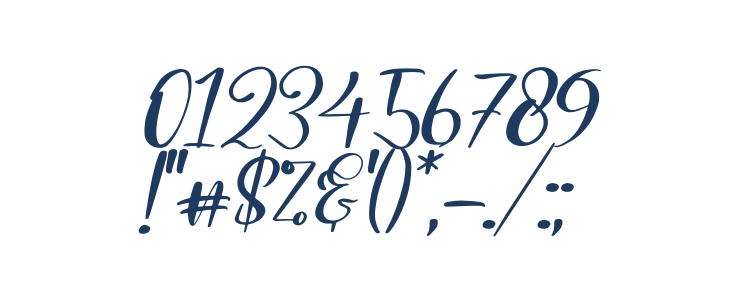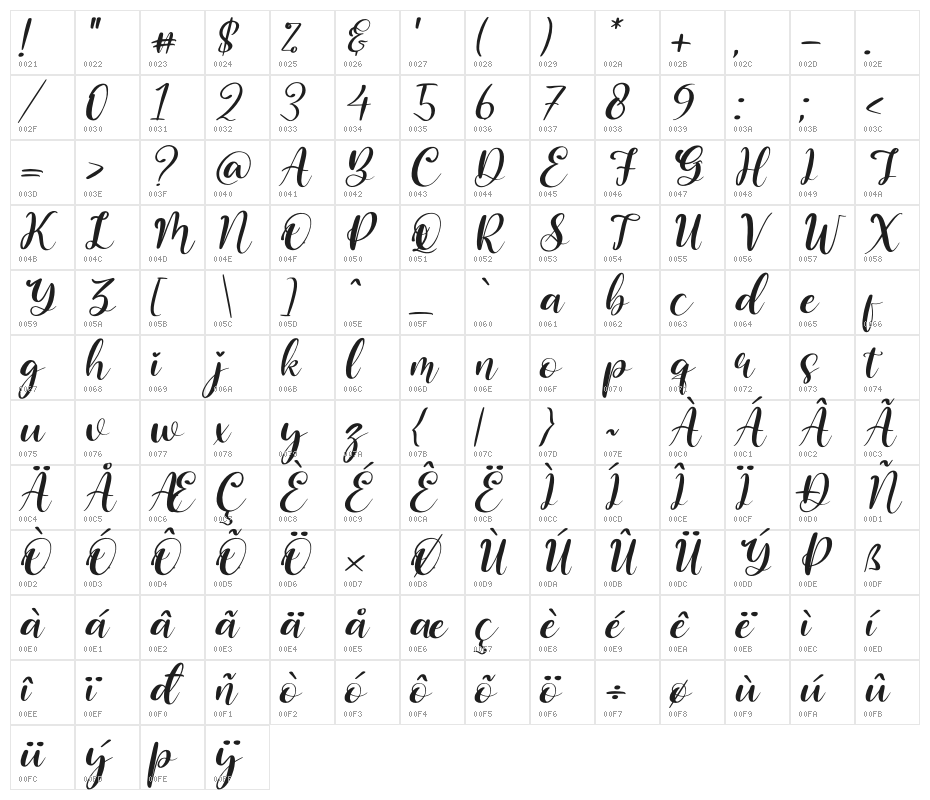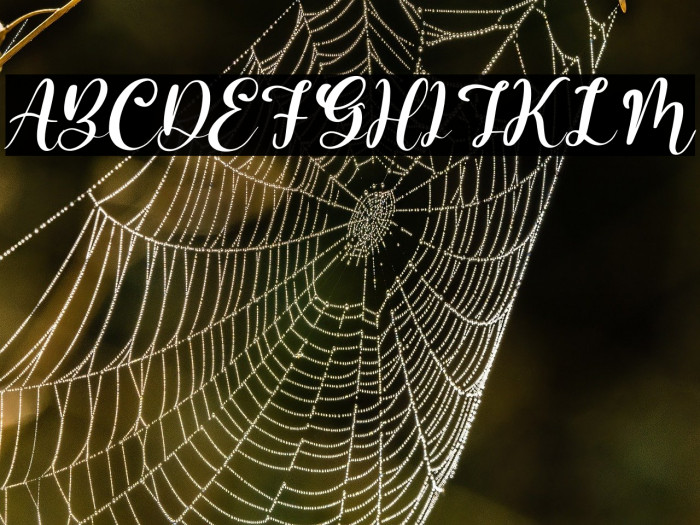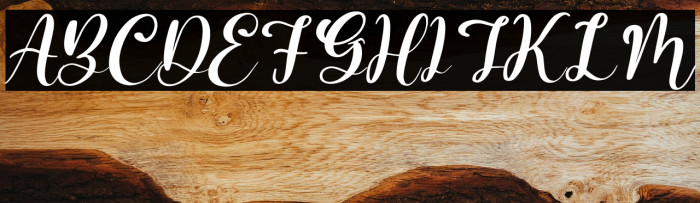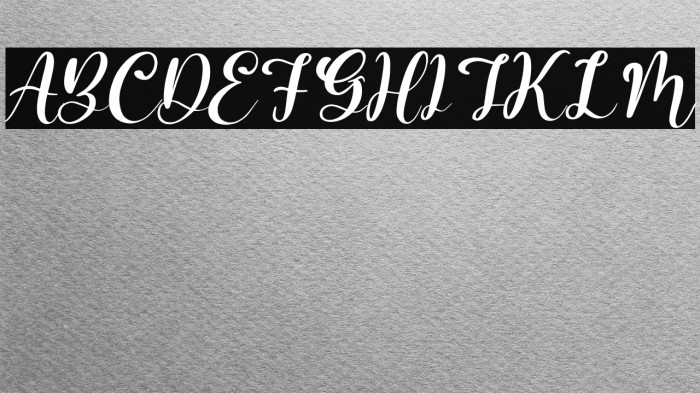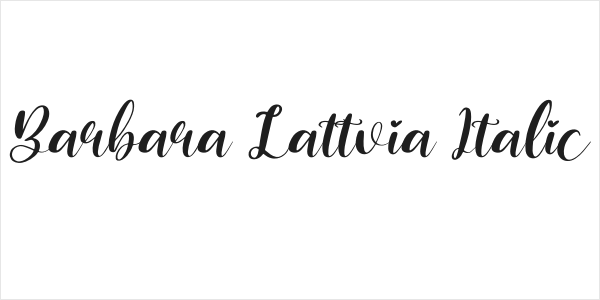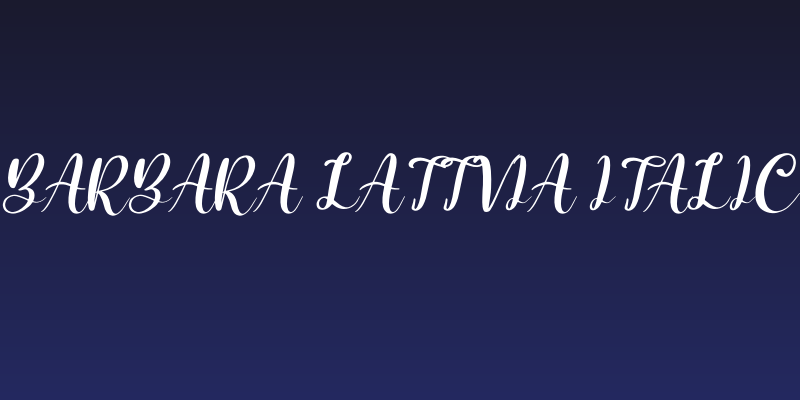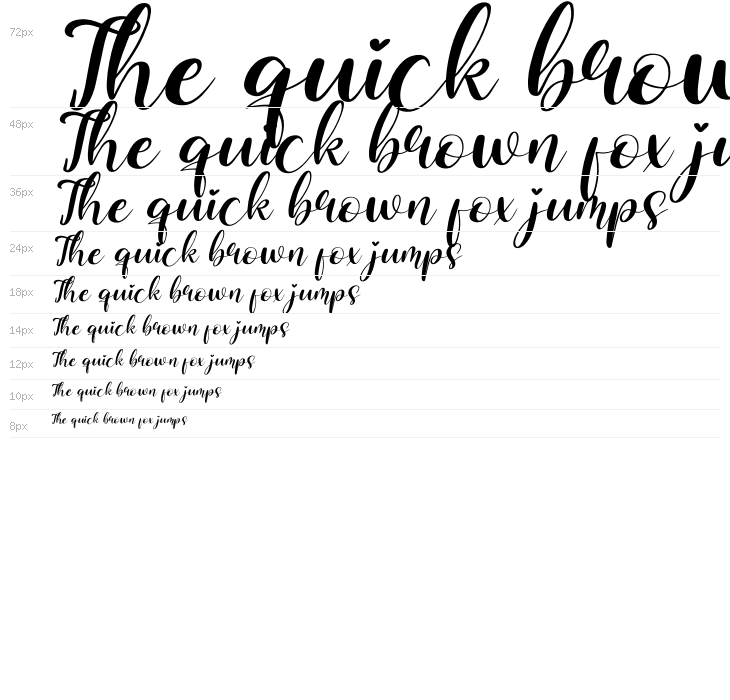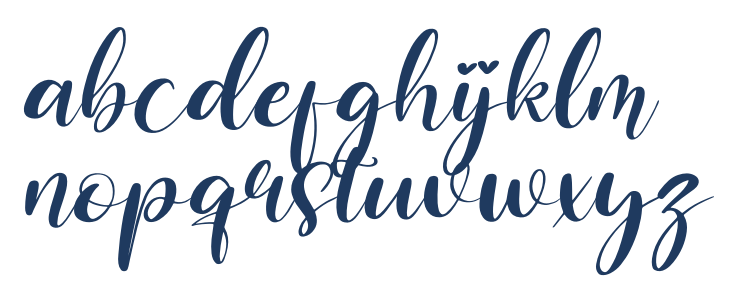
Barbara Lattvia Italic Font
Barbara Lattvia Italic Description
This elegant script font features a flowing, cursive style with a sophisticated flair. The characters are interconnected with smooth, sweeping strokes, creating a sense of fluidity and grace. The uppercase letters are ornate, with decorative loops and flourishes, while the lowercase letters maintain a consistent rhythm and balance. The numerals and special characters are designed to complement the overall aesthetic, maintaining the same graceful curves and lines. This font exudes a sense of elegance and refinement, making it ideal for formal and decorative applications.
| Use Case | Logos, Invitations, Decorative Text |
| Proposed Projects | Ideal for wedding invitations, elegant branding, and decorative signage. |